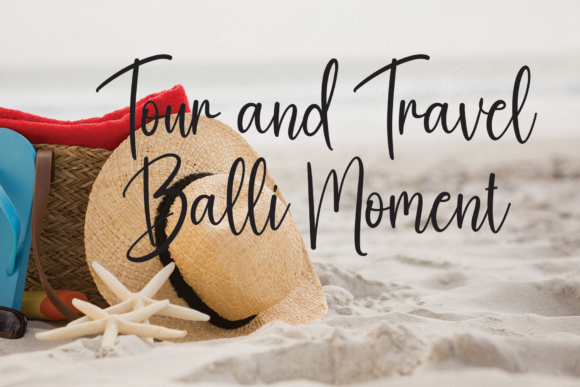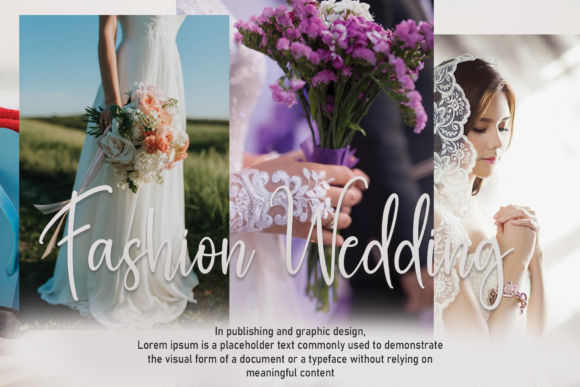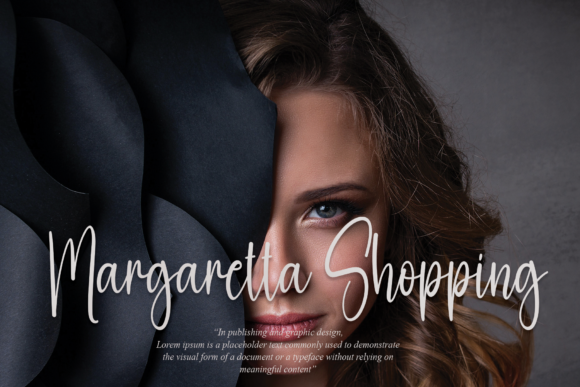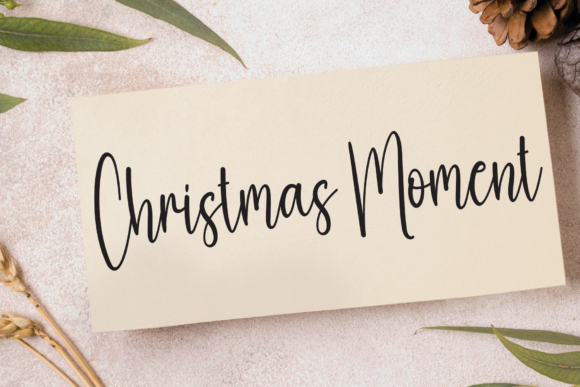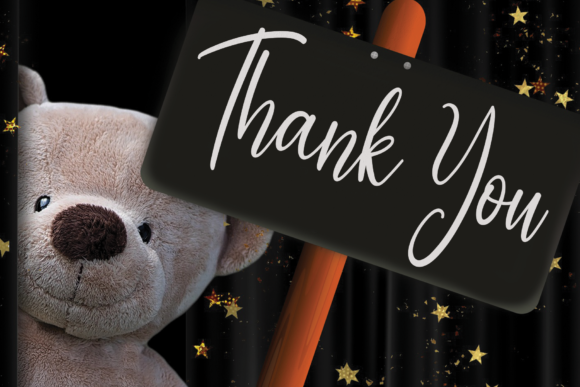
Stella Font
About Stella Font
Stella is a modern and professional handwriting font that you can use for wall displays, wedding invitations, social media post logos, advertisements, product packaging, product designs, labels, photography, watermarks, invitations, stationery, and more.